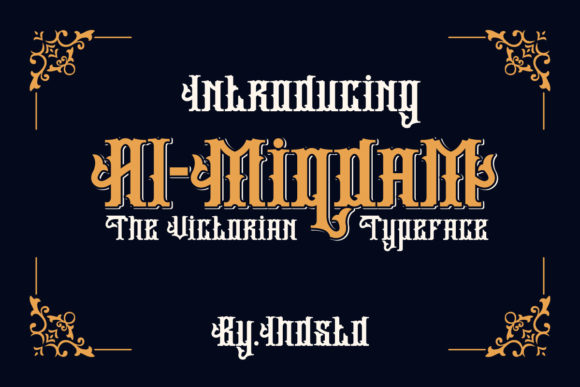
The Almiqdam Font: A Designer’s Dream Come True
I’ll never forget the moment I stumbled upon the Almiqdam font while working on a project that required a bold, eye-catching typeface. I had been searching for hours, trying out font after font, but nothing seemed quite right. That was until I saw Almiqdam – a highly detailed, distinct, and assertive blackletter font that immediately caught my attention. In this article, I’ll share my experience with Almiqdam, its features, and how to make the most of this stunning font.
My Honest Review of Almiqdam
- ✨ Highly detailed and intricate design
- ✅ Distinct and assertive style that stands out
- 💫 PUA encoded for easy access to glyphs and swashes
- 🎨 Versatile and perfect for a variety of design projects
While Almiqdam is an amazing font, there are a few things to keep in mind:
- 🤔 May not be suitable for body text due to its intricate design
- ⚠️ Some users may find the font overwhelming or too bold for certain projects
The Story Behind Almiqdam
Almiqdam was designed by a team of typographers who wanted to create a font that would stand out from the crowd. Inspired by traditional blackletter fonts, they added a modern twist to create a unique and assertive typeface. The result is a font that’s perfect for designers who want to add a touch of elegance and sophistication to their designs.
A: PUA (Private Use Area) encoding is a way of mapping font glyphs to a specific range of Unicode characters. This allows font users to access glyphs and swashes easily, making it perfect for designers who want to create complex and detailed designs.
Q: Is Almiqdam suitable for body text?
A: While Almiqdam is a beautiful font, it may not be suitable for body text due to its intricate design. It’s best used for headlines, titles, and other display text.